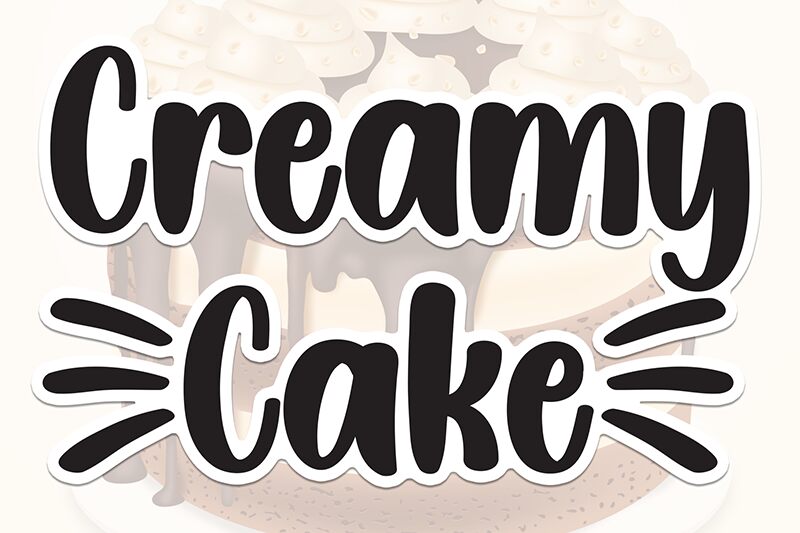
Creamy Cake
Creamy Cake font by Scratchones is a bold brush font following clean and smooth lines. This casual and friendly typeface features rounded ends with contemporary applications that extend from food branding to other businesses. The welcoming nature of this free display font is what makes it highly legible even with smaller text size in print or digital usage.
Your tasty Creamy Cake experience can start with invitations and greeting cards, menus, price tags, or playful product packaging designs. Pairing suggestions can begin with simple sans serifs for logos, websites, short paragraphs on posters or magazine cover titles. Even more fun uses could be present at game interfaces and individual cultural playful items.